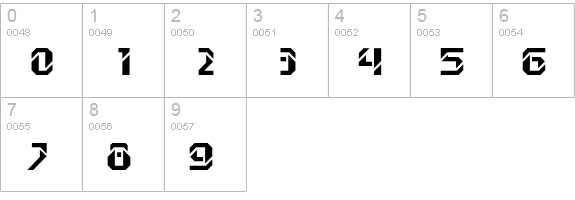
Dex Gothic D Font Details
Dex Gothic D font is a modern and stylish typeface that exudes sophistication and elegance. With its clean lines and sharp edges, this font is perfect for a variety of design projects, from logos to posters to websites. The sleek design of Dex Gothic D font gives it a timeless appeal that is sure to make your work stand out. And the best part? Dex Gothic D font is completely free to download at FontsMarket.com! This means you can add this beautiful font to your collection without having to spend a dime. So why wait? Head over to FontsMarket.com now and download Dex Gothic D font to elevate your designs to the next level.